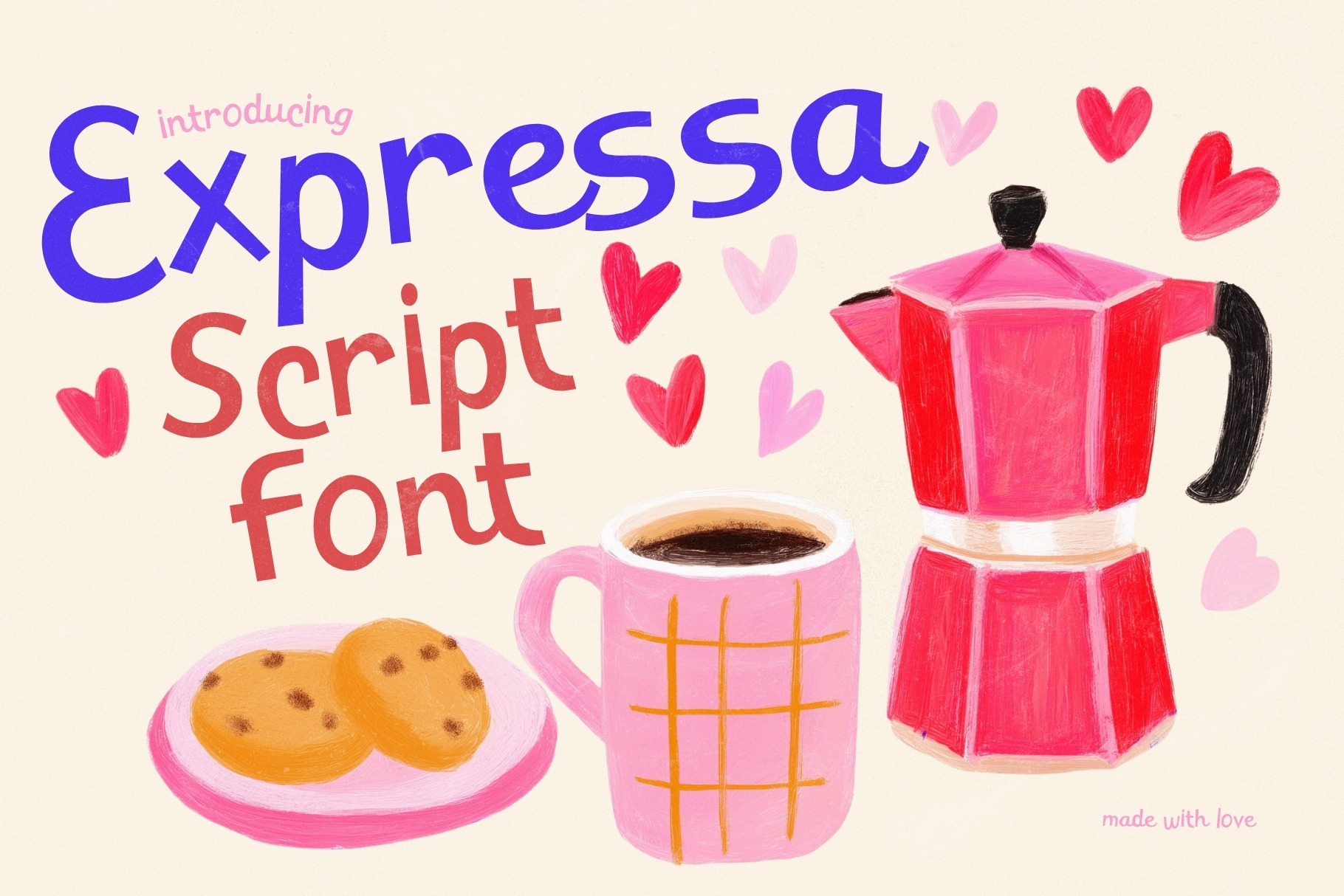
Expressa - Whimsical Script Font
Expressa Script is a fun, whimsical, and playful modern script font designed to bring energy and personality into every project. With its bold weight and smooth flowing strokes, it strikes the perfect balance between casual handwriting and confident visual impact.
Crafted for versatility, Expressa Script delivers expressive letterforms that feel warm, dynamic, and full of life. Each curve and connection is designed to maintain clarity while still embracing a relaxed, hand-drawn charm—making it ideal for both eye-catching headlines and friendly branding.
This typeface shines in logos, posters, social media graphics, packaging, invitations, and branding projects that need a touch of personality without sacrificing readability. Its bold presence ensures maximum visibility, while its playful rhythm adds a sense of movement and joy.
Whether you’re creating something cute, stylish, or full of character, Expressa Script helps your designs feel more human, more expressive, and more memorable.